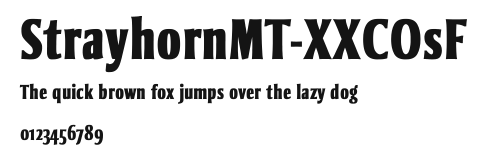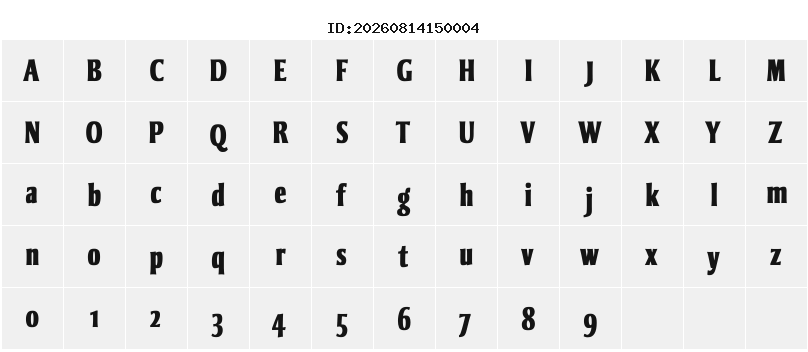
• Font Name: StrayhornMT-XXCOsF
• Full Font Name: StrayhornMT-XXCOsF Bold
StrayhornMT-XXCOsF.ttf is a modern, elegant sans-serif font designed for ultimate readability and visual harmony. Perfect for branding, headlines, web design, and print materials.